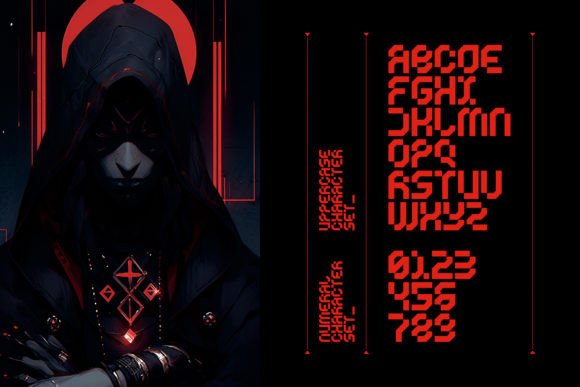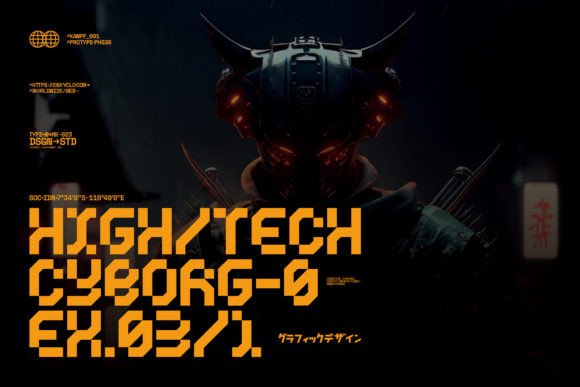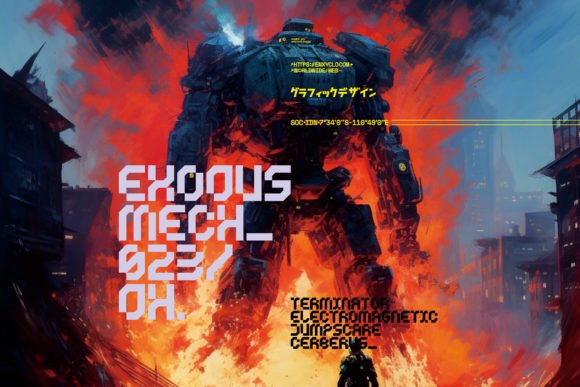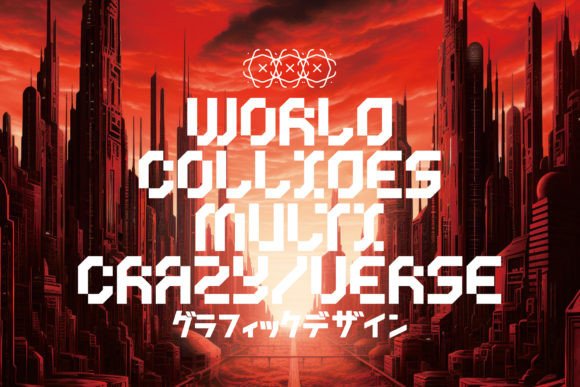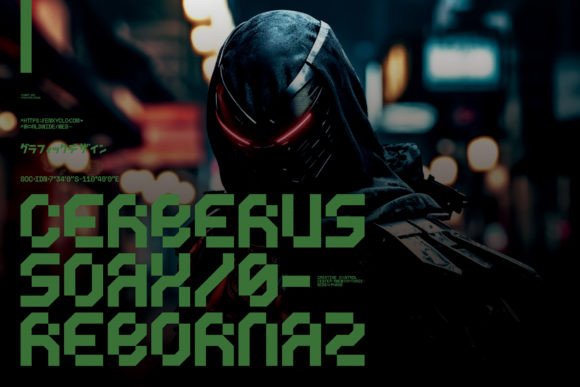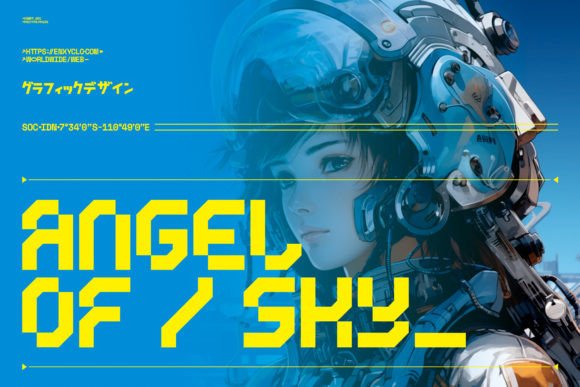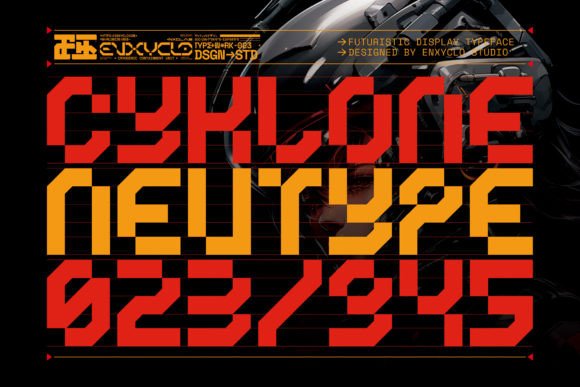
CYKLONE Font: Elevate Your Designs with a Futuristic Twist
In the realm of typography, fonts play a pivotal role in shaping the visual identity of a design. For those seeking a modern and bold vibe with a sci-fi touch, CYKLONE Font emerges as an exceptional choice. This cool and futuristic display font is engineered to transform your favorite designs, infusing them with a futuristic essence that captivates and intrigues.
The Essence of CYKLONE Font
CYKLONE is not just a font; it’s an experience. Its modern and bold characteristics make it an ideal selection for designers aiming to push the boundaries of conventional typography. The futuristic vibe of CYKLONE is meticulously crafted, offering a unique blend of sleek lines and dynamic curves that instantly elevate the aesthetic appeal of any design.
Key Features of CYKLONE Font
• Modern and Bold Design: CYKLONE boasts a contemporary look that is both striking and memorable, making it perfect for headlines, titles, and any design element that requires emphasis.
• Futuristic Aesthetic: With its sleek lines and innovative style, CYKLONE brings a sci-fi touch to your designs, setting them apart in a crowded digital landscape.
• Versatility: This font is incredibly versatile, suitable for a wide range of applications, from digital media and advertising to print and packaging designs.
Applications of CYKLONE Font
The versatility of CYKLONE Font makes it suitable for various design projects. Here are some of the most compelling applications:
• Digital Media: For websites, social media posts, and digital advertisements, CYKLONE Font can serve as a powerful tool to grab attention and convey a forward-thinking brand image.
• Print Design: Whether it’s for posters, flyers, brochures, or business cards, CYKLONE adds a touch of modernity and sophistication, making your print materials stand out.
• Film and Video: In the realm of film and video production, CYKLONE can be used for titles, subtitles, and end credits, adding a professional and futuristic flair.
• Packaging: For product packaging, especially for tech gadgets and innovative products, CYKLONE Font can enhance the visual appeal and communicate the product’s cutting-edge nature.
Tips for Using CYKLONE Font Effectively
To maximize the impact of CYKLONE Font in your designs, consider the following tips:
• Pair with Complementary Fonts: Combine CYKLONE with simpler fonts to create contrast and ensure readability, especially in multi-text designs.
• Adjust Size and Color: Experiment with different sizes and colors to highlight key information and maintain visual hierarchy.
• Consider the Background: Ensure there’s sufficient contrast between the text and the background to maintain the font’s visibility and impact.
CYKLONE Font is a game-changer for designers looking to infuse their projects with a modern, bold, and futuristic vibe. Its versatility, ease of use, and striking appearance make it an invaluable asset in the world of design. Whether you’re working on digital projects, print materials, or film and video productions, CYKLONE Font offers the perfect blend of style and functionality to elevate your designs to new heights.
Embrace the future of typography with CYKLONE Font and discover a world of limitless creative possibilities.